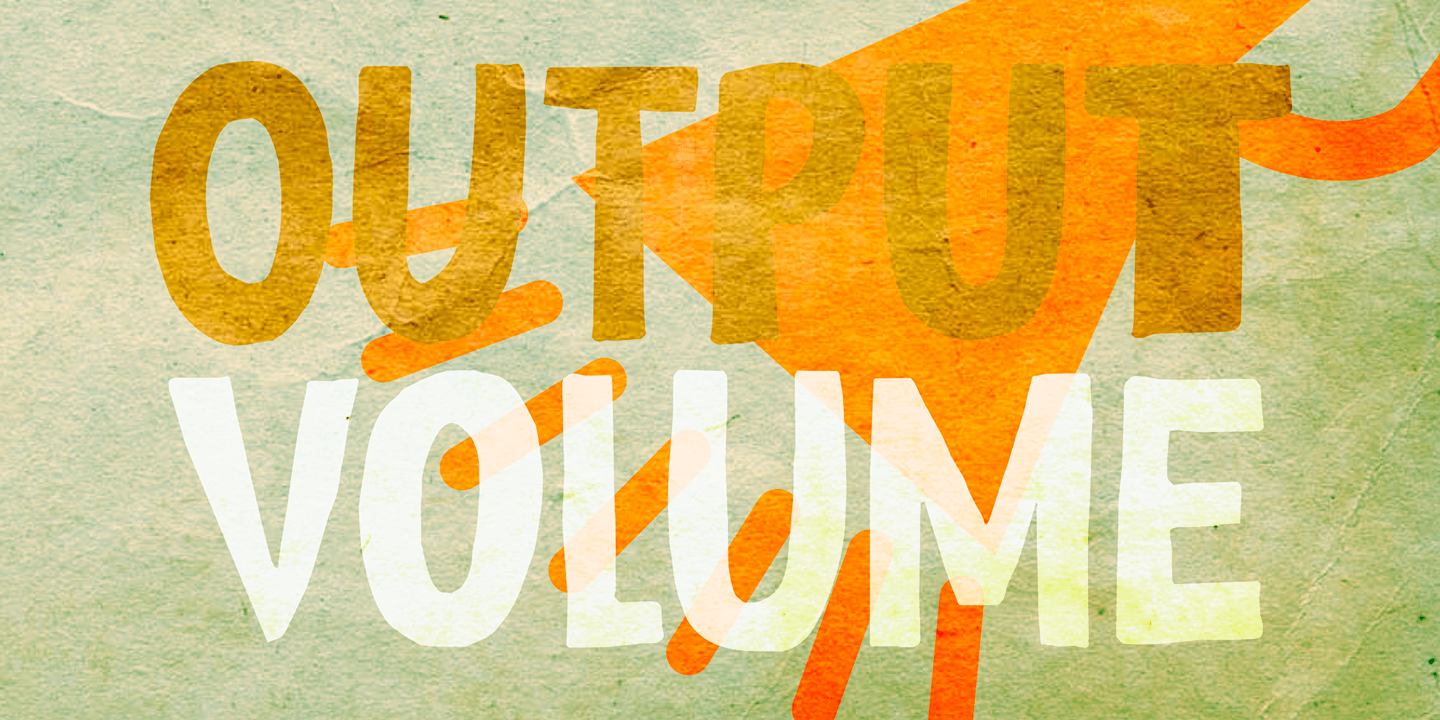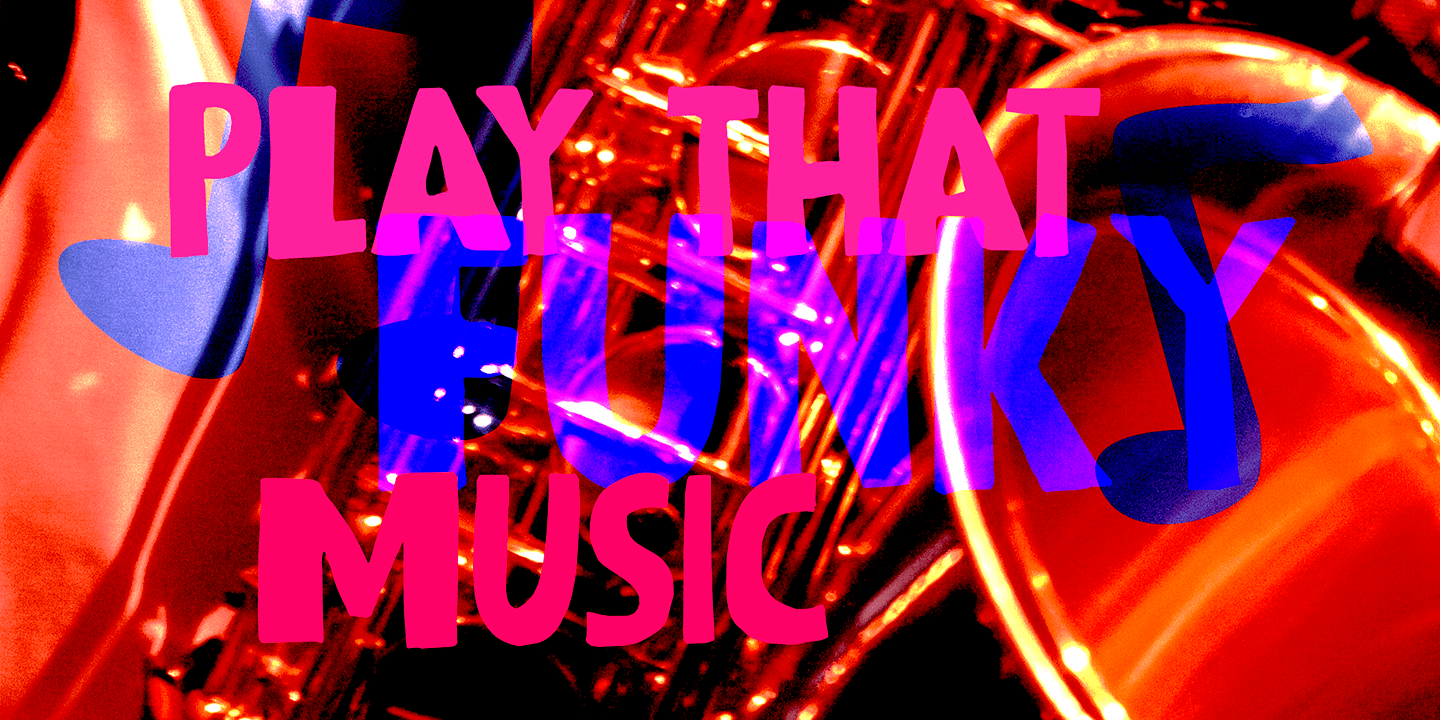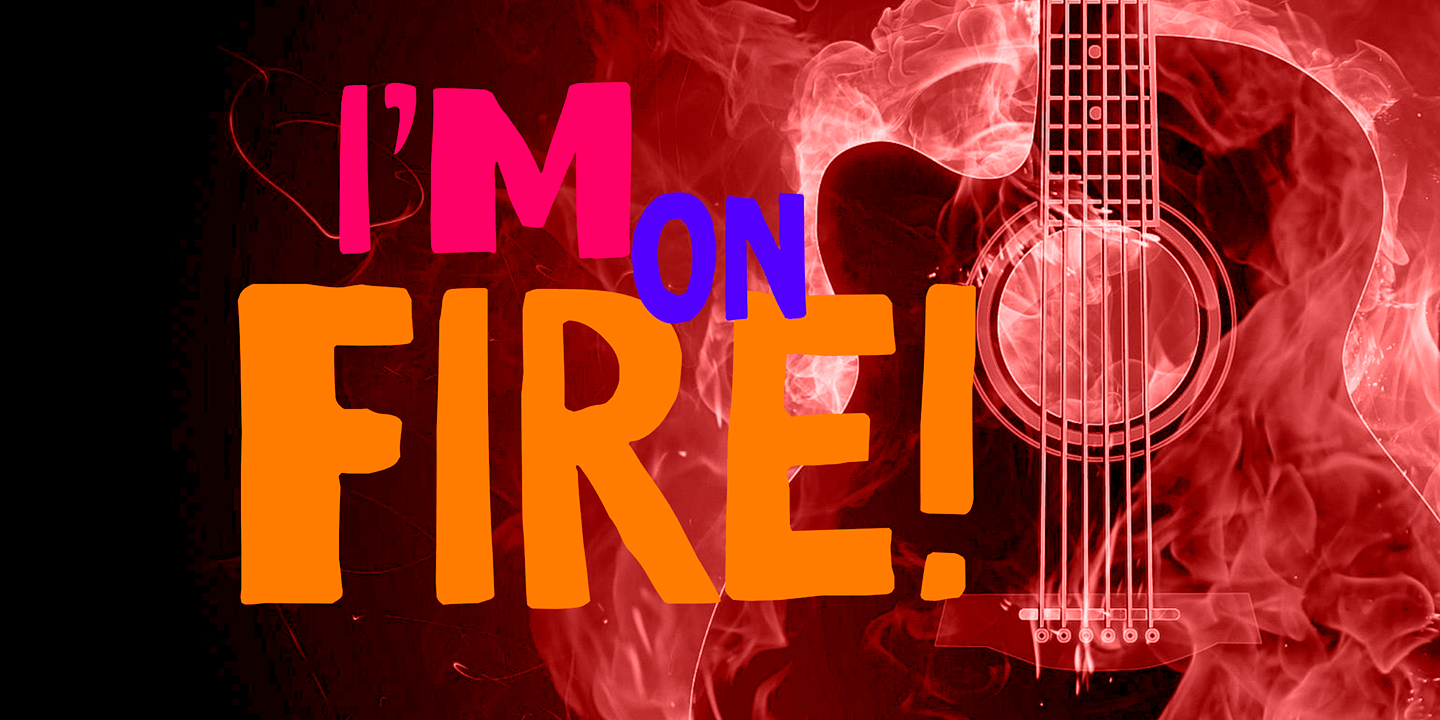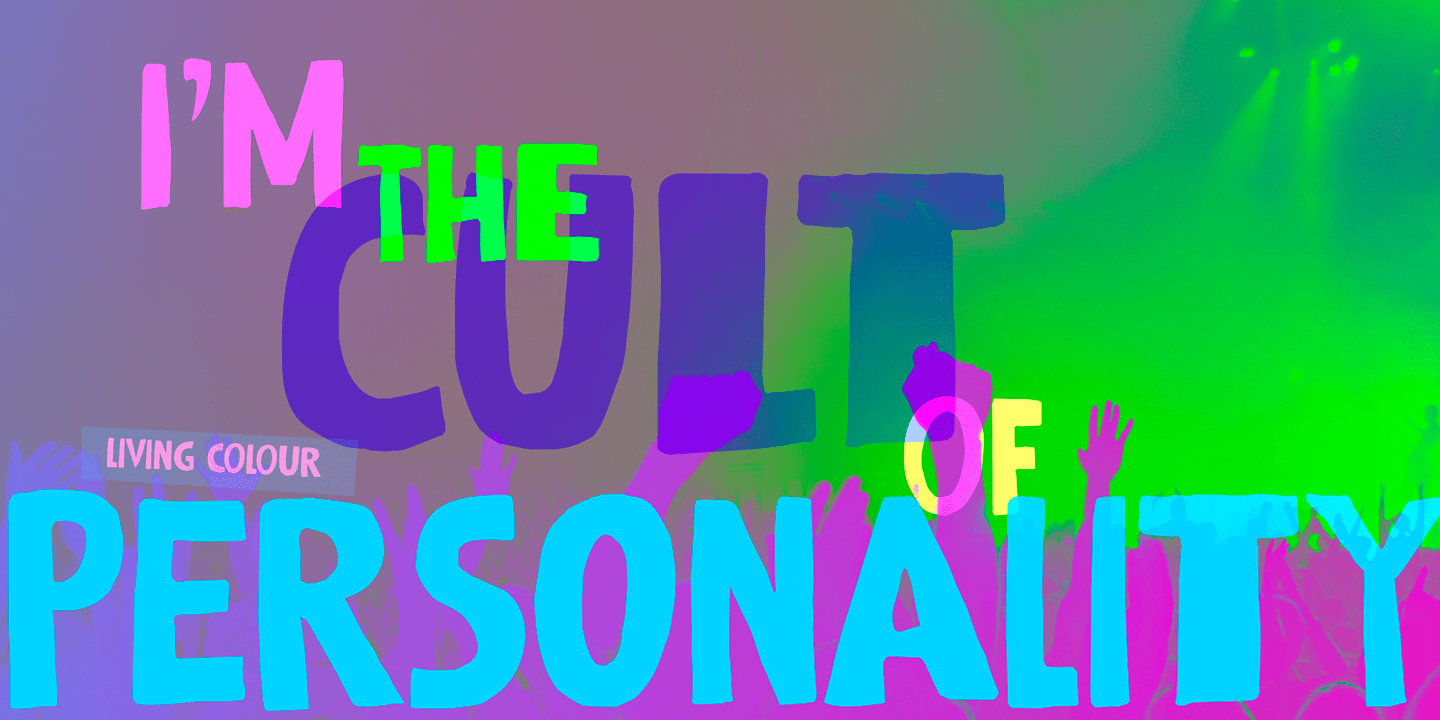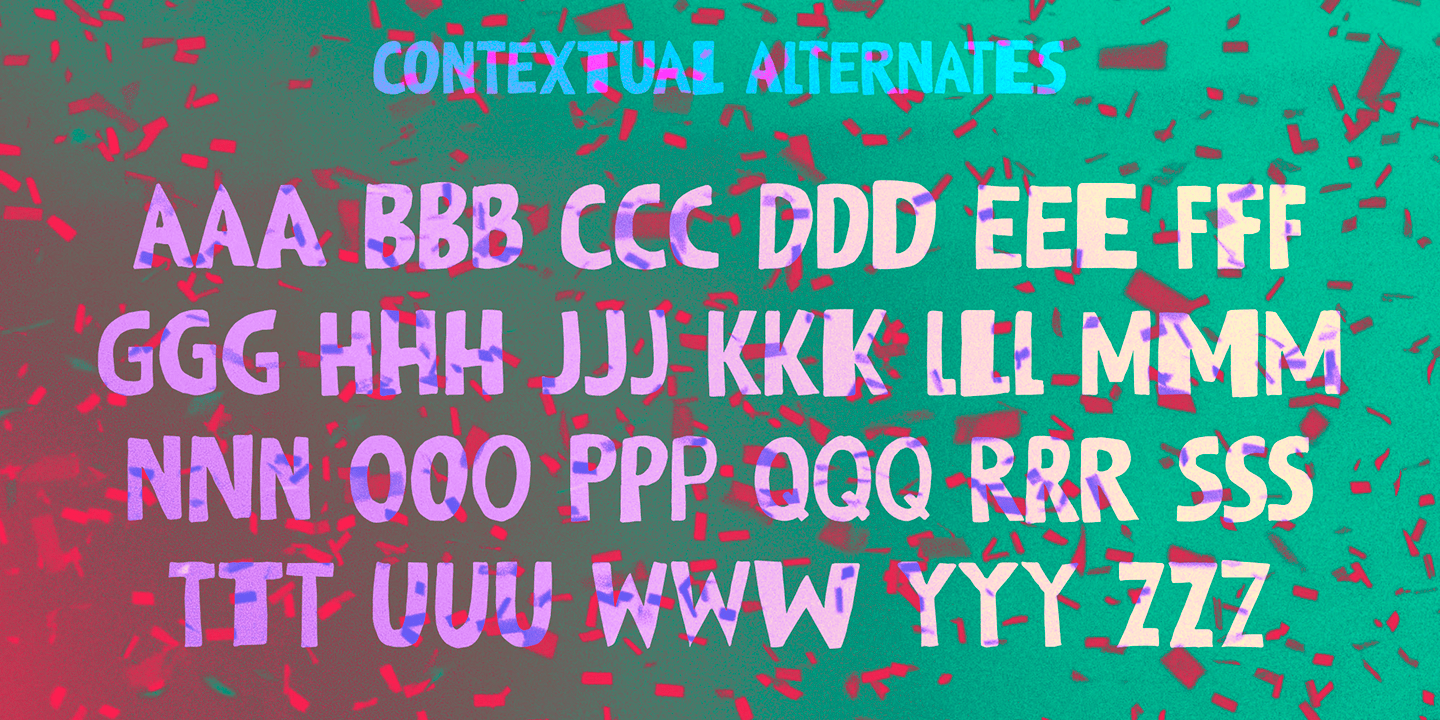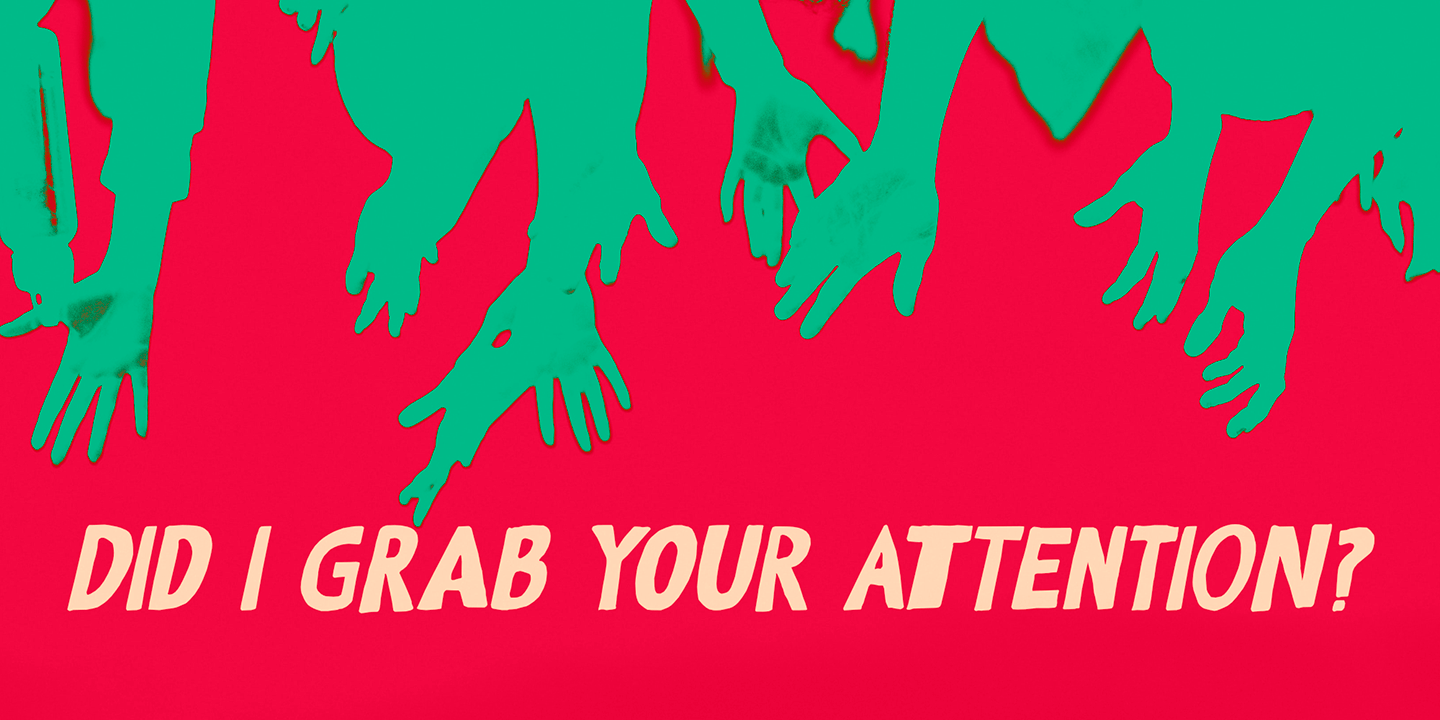
Output Volume
I recently bought a small, portable speaker. I can now listen to music when I am making fonts! Output Volume is a name I came up with after reading the quick start guide that came with the speaker.
Output Volume is a 100% handmade display font - it was based on a protest sign, but after a few glyphs it started to morph into something unique. I created 2 sets of contextual alternates (including the most used accented glyphs), that will cycle as you type. I also added some discretionary ligatures, to get an even more random effect.
Output Volume comes with a vast array of accented letters, including Vietnamese.